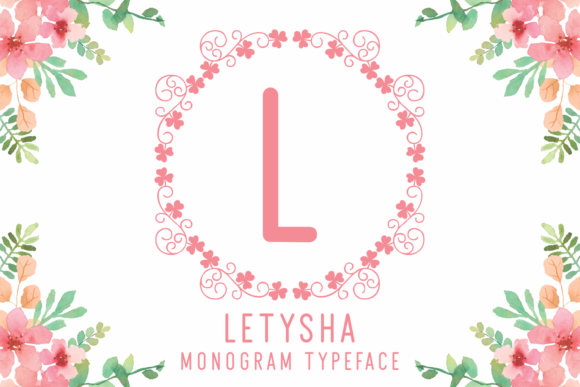
**Introducing Letysha Font: The Epitome of Elegance for Unforgettable Expressions**
Prepare to be mesmerized by Letysha Font, the decorative masterpiece that will transform your words into captivating works of art. With its enchanting versatility, Letysha empowers you to craft breathtaking wedding invitations that will leave a lasting memory on your guests. Unleash your creativity and design exquisite stationary art that will elevate your everyday correspondence.
Step into the world of social media and make a statement with Letysha Font. Its eye-catching allure will draw attention to your posts, making them stand out in the crowded digital landscape. Elevate your brand's image with this font's sophisticated touch, ensuring that your message resonates with clarity and impact.
**Why Choose Letysha Font?**
- **Exclusively Designed for Cover Letters:** Letysha Font is meticulously crafted to enhance the presentation of your cover letters. Its refined aesthetic will showcase your professionalism and leave a remarkable impression on potential employers.
- **A Canvas for Your Creativity:** Letysha's versatile style grants you endless possibilities to express yourself. From elegant wedding invitations to charming social media posts, this font adapts seamlessly to your vision.
- **Effortless Customization:** With Letysha Font, you have complete control over customization. Experiment with different colors, sizes, and effects to create a truly unique and personalized design that reflects your style.
- **Unleash Your Imagination:** Let Letysha Font ignite your imagination and carry your words beyond the ordinary. Its captivating curves and graceful lines will inspire you to create designs that will captivate and enchant.
Don't settle for ordinary fonts that blend into the background. Embrace the allure of Letysha Font and watch as your words transform into captivating expressions of art. Let this font be your secret weapon for creating unforgettable impressions and leaving a lasting legacy in the hearts of your audience.